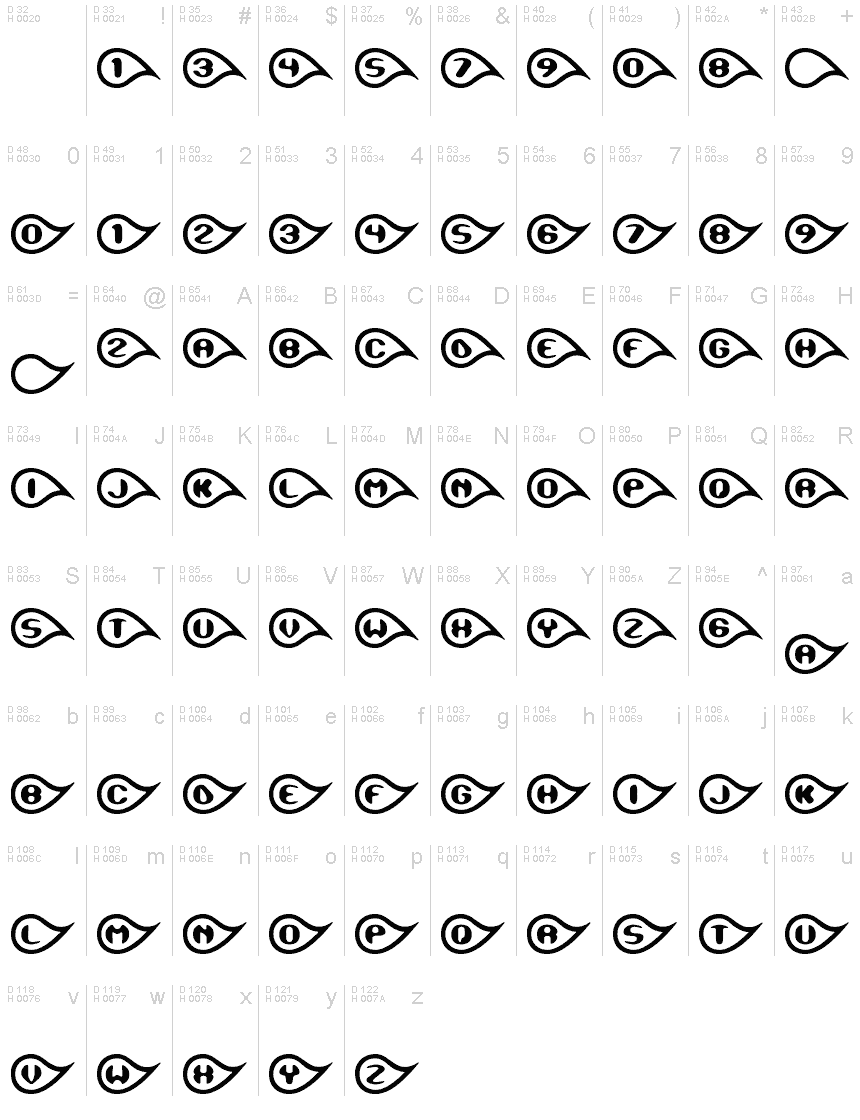
Tearful BRK
Tearful BRK, a creation from the imaginative minds at ÆNIGMA FONTS, stands as a bold testament to the art of typographic design. This display font belongs to the Tearful family and boasts a decorative style that commands attention with its distinctive bold weight. The fluidity of Tearful BRK's characters evokes a sense of movement and drama, making it an excellent choice for creative projects that require an emotional impact or an element of whimsy.
Tailored to make a statement, Tearful BRK's aesthetic appeal lies in its ability to blend playfulness with visual strength. Its character shapes are reminiscent of inkblots or tears streaming down, adding an organic touch to the digital realm. This font's decorative nature provides designers with a versatile tool for crafting eye-catching headlines, standout logos, and engaging promotional materials that need more than just legibility—they demand personality.
In essence, Tearful BRK is not just another font; it's a celebration of creativity and expression perfect for designers seeking to infuse their work with emotion and uniqueness. Whether used in digital media or print, Tearful BRK has the potential to elevate any design project with its unique charm and strong visual presence.
Tailored to make a statement, Tearful BRK's aesthetic appeal lies in its ability to blend playfulness with visual strength. Its character shapes are reminiscent of inkblots or tears streaming down, adding an organic touch to the digital realm. This font's decorative nature provides designers with a versatile tool for crafting eye-catching headlines, standout logos, and engaging promotional materials that need more than just legibility—they demand personality.
In essence, Tearful BRK is not just another font; it's a celebration of creativity and expression perfect for designers seeking to infuse their work with emotion and uniqueness. Whether used in digital media or print, Tearful BRK has the potential to elevate any design project with its unique charm and strong visual presence.